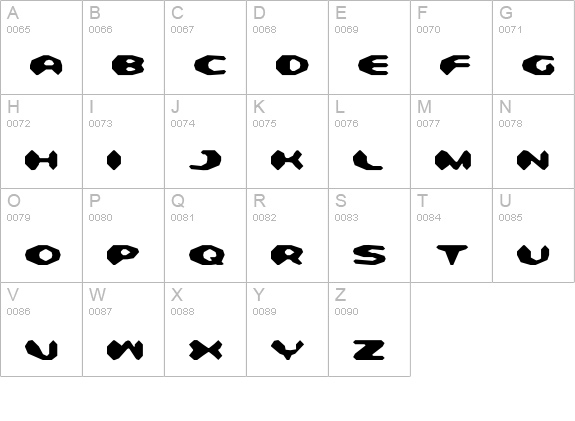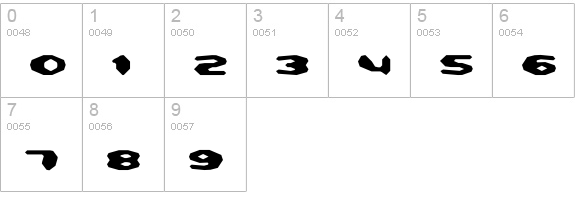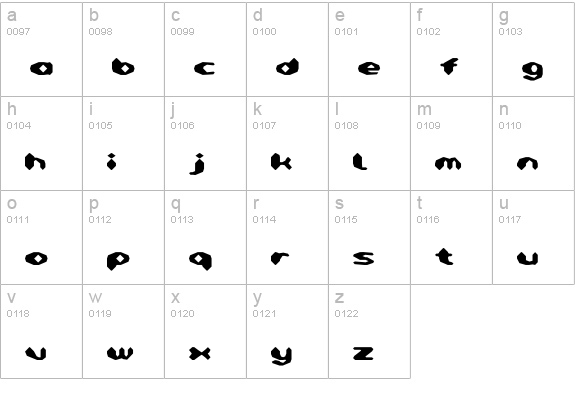
Detonator Font Details
Detonator font is an explosive display typeface that packs a powerful punch with its bold and dynamic appearance. Designed to make a statement, this font is perfect for headlines, posters, and any design project that needs a touch of impact. The strong, angular letterforms of Detonator give off a sense of energy and excitement, making it a great choice for projects that require a bold and modern look. Best of all, Detonator font is free for personal and commercial use, available for download at FontsMarket.com. Whether you're a designer looking to add some edge to your work or a creative looking for a font that will grab attention, Detonator is sure to deliver the explosive impact you're looking for. Download it today and let your designs detonate with style!